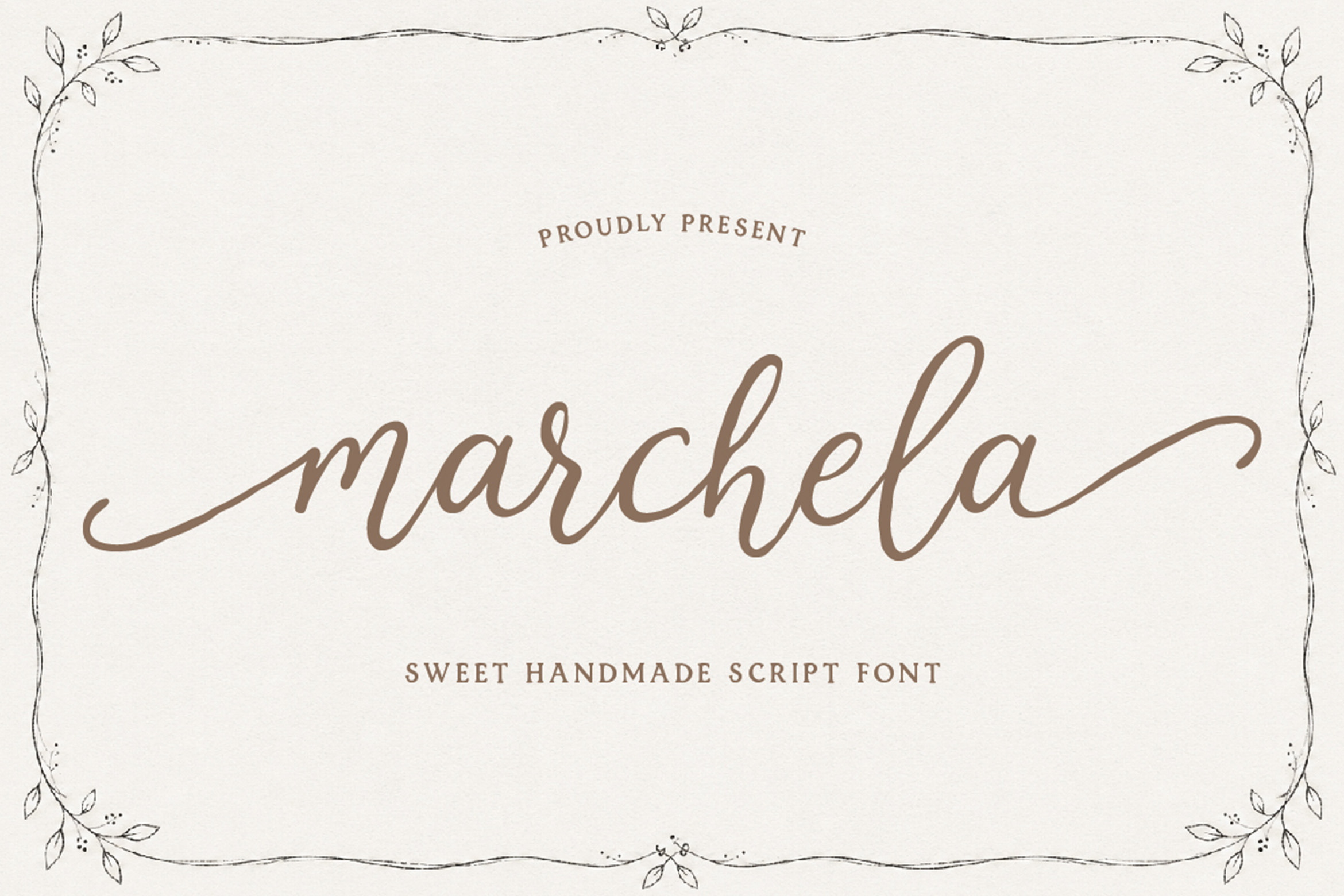
Marchela Sweet Handmade Script Font
Marchela is a beautiful handmade script font crafted to bring warmth, elegance, and authenticity to your creative projects. With smooth strokes, graceful curves, and a naturally flowing handwritten style, Marchela features stylish beginning and ending swashes/tails on every uppercase character, giving your designs a refined and luxurious handwritten look. Perfect for branding, wedding stationery, packaging, social media graphics, logos, beauty products, invitations, and feminine design projects.
Marchela Regular, Rough, Rough 2
Uppercase & Lowercase Characters
Ligatures & Swashes/Tails